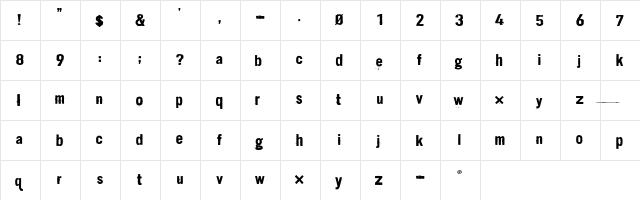
Dirt2 Stickler Regular
Design Context for Dirt2 Stickler Typeface
Dirt2 Stickler offers clean, dependable letterforms without strong stylistic allegiance, making it a practical choice for designers who need flexibility.
Pro Tip: Pair Dirt2 Stickler with a font of contrasting weight or personality to build a more expressive typographic hierarchy.